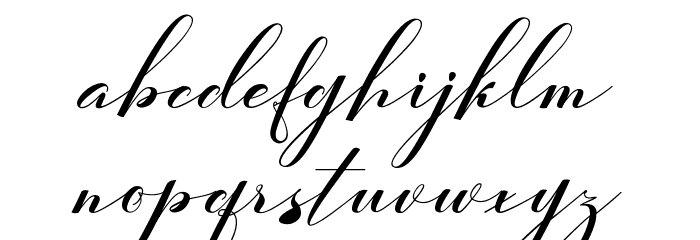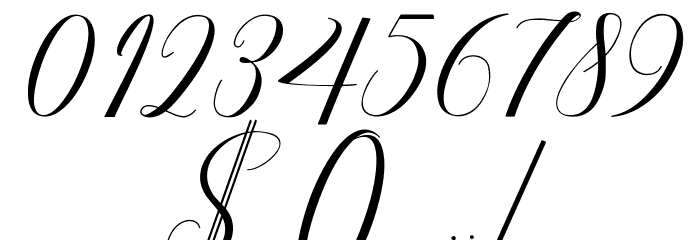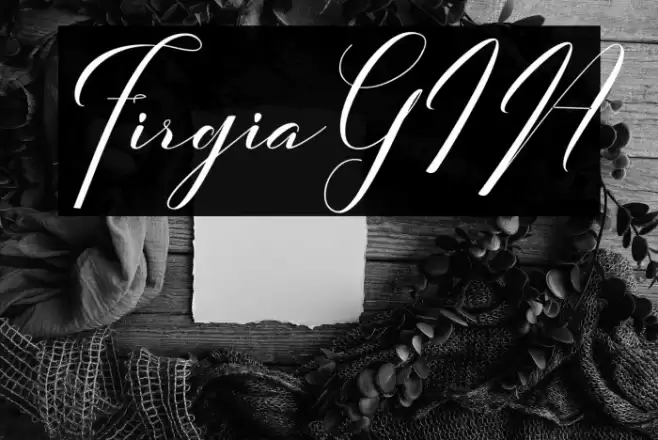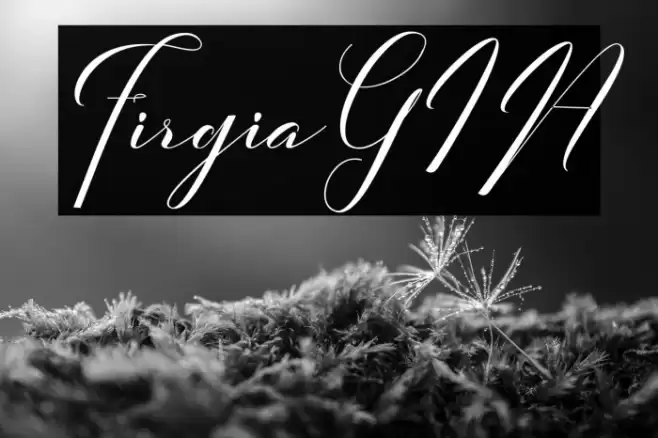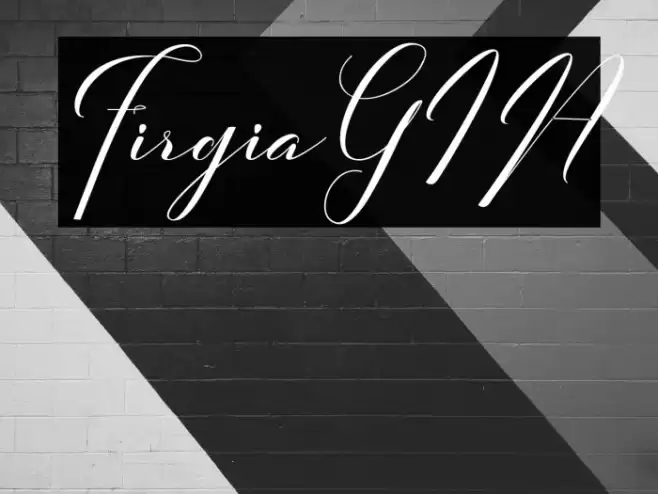
FirgiaGIA Font
This elegant script font exudes a sense of sophistication and fluidity, characterized by its flowing, cursive letterforms. The uppercase letters are tall and graceful, with sweeping ascenders and descenders that create a dynamic rhythm. The lowercase letters maintain a consistent slant, enhancing the font's overall cohesiveness and readability. The numerals are stylishly integrated, matching the script's elegant curves. Special characters are thoughtfully designed to complement the alphabet, ensuring versatility in various design contexts. This font's delicate strokes and refined appearance make it ideal for projects that require a touch of elegance and class.
An elegant and flowing script font with graceful, cursive letterforms.
- Proposed Projects: Ideal for wedding invitations, elegant branding, luxury packaging, and sophisticated editorial design.
- Overall Style: Elegant
- Use Case: Logos, Invitations, Branding